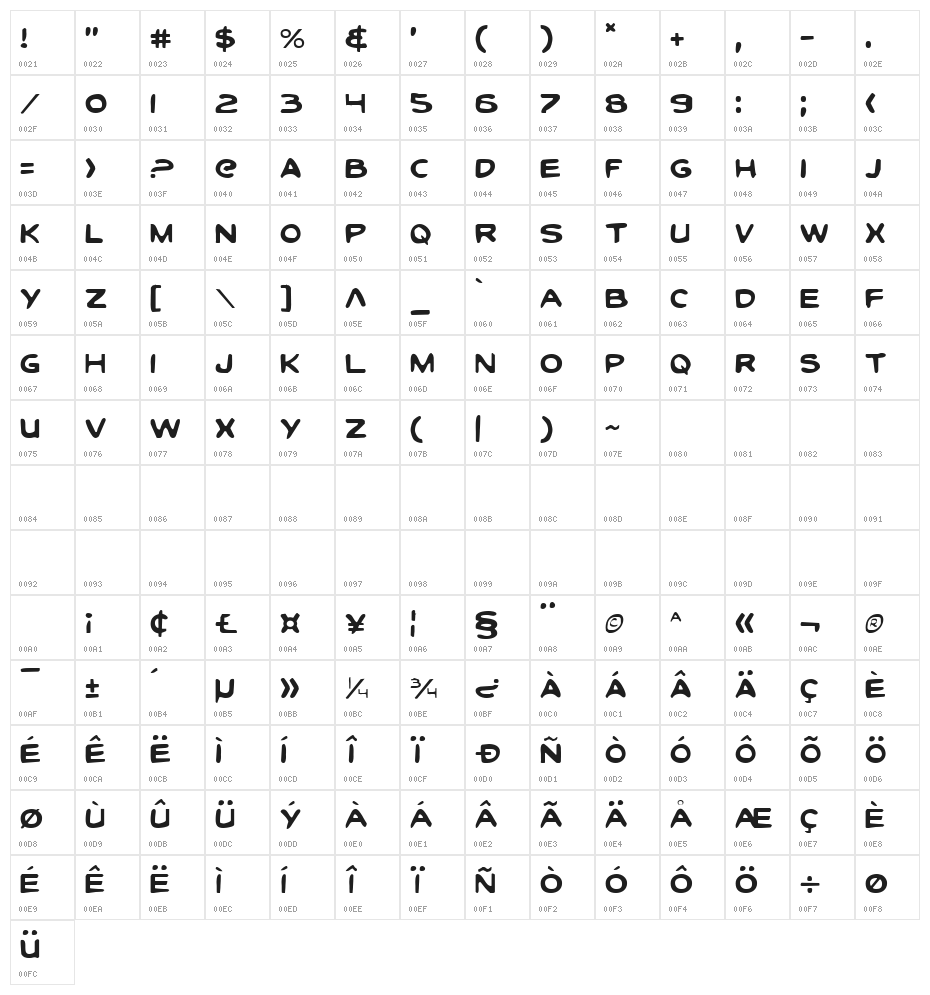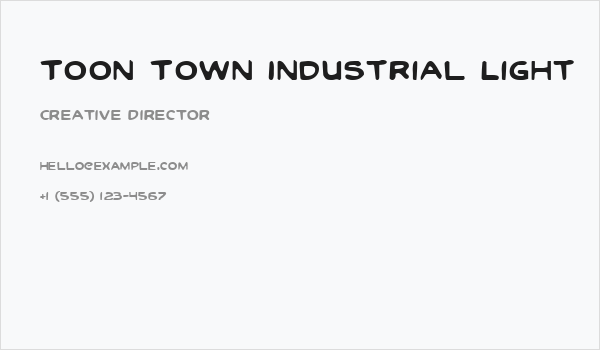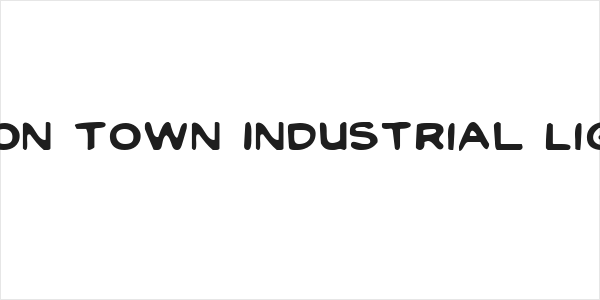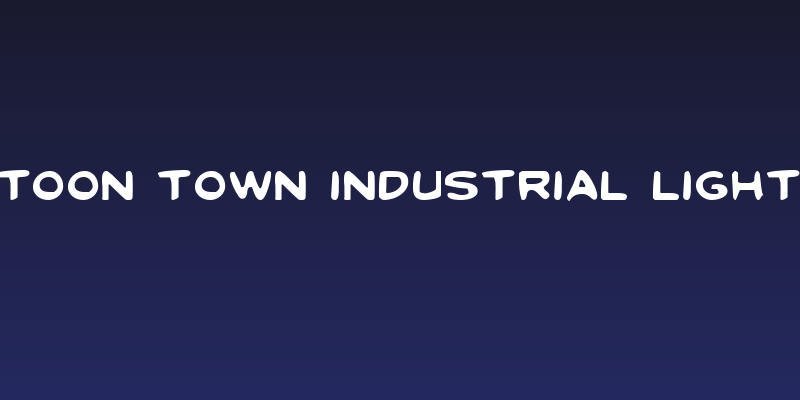
Toon Town Industrial Light Font
Toon Town Industrial Light Description
This playful and bold typeface features rounded, cartoon-like characters that exude a sense of fun and whimsy. The letters are thick and slightly irregular, giving them a hand-drawn appearance that adds to their charm. The font maintains a consistent weight throughout, with smooth curves and a friendly demeanor. Its unique style makes it stand out, perfect for capturing attention in creative projects. The numerals and special characters are equally bold and maintain the same playful aesthetic, ensuring a cohesive look across all text elements.
| Proposed Projects | Ideal for children's books, comic strips, playful branding, and creative posters. |